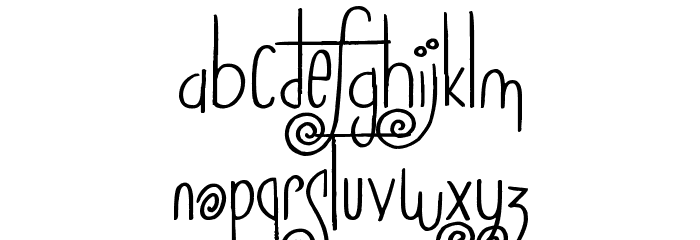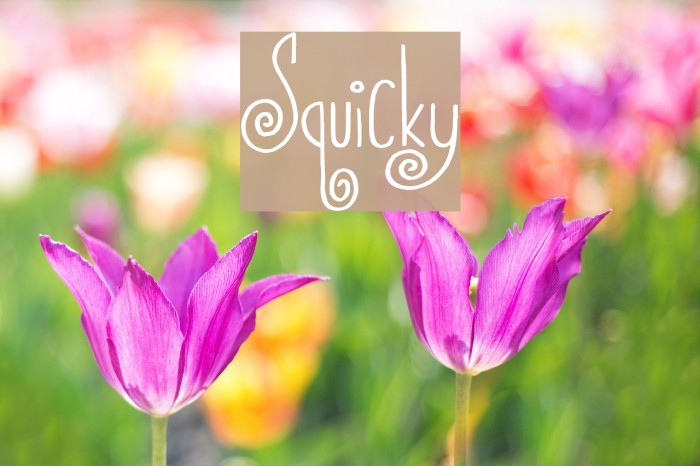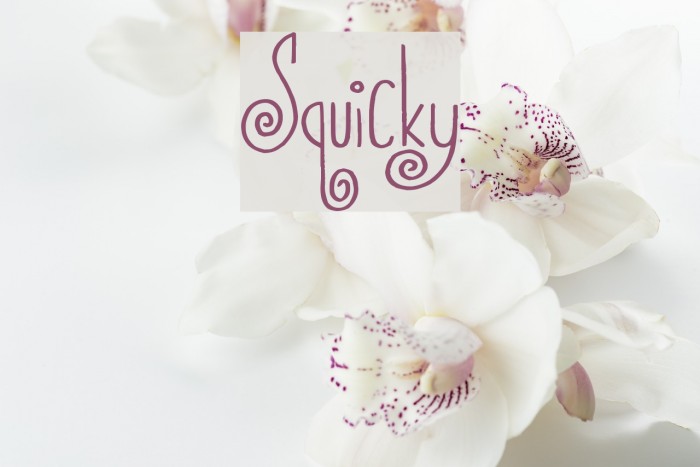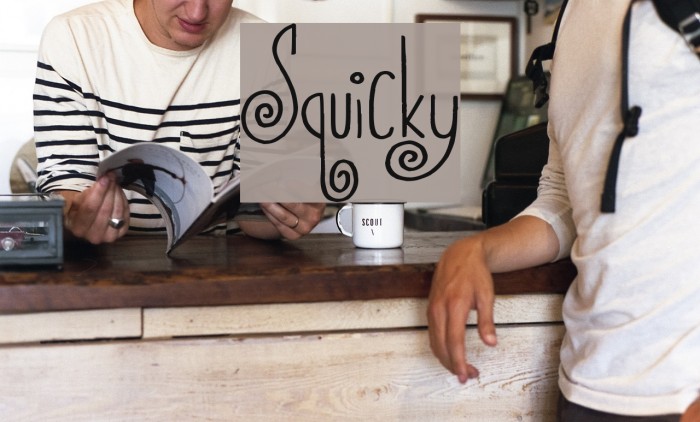
Squicky Font
This font features a whimsical and playful design with elongated and exaggerated letterforms. The uppercase letters exhibit a unique combination of straight lines and circular elements, creating a dynamic and artistic appearance. The lowercase letters maintain a similar style, with some characters incorporating spiral or looped elements that add to the font's quirky charm. The overall design is reminiscent of hand-drawn or illustrative styles, making it stand out with its creative flair. The font's distinctiveness is further enhanced by its irregular character spacing and varying line thickness, which contribute to its artistic and decorative nature.
A whimsical, artistic font with elongated, playful letterforms and unique spiral elements.
- Proposed Projects: Ideal for creative projects such as children's book covers, playful branding, artistic posters, and whimsical invitations.
- Character Spacing: Irregular
- Use Case: Logos, Headlines, Artistic projects